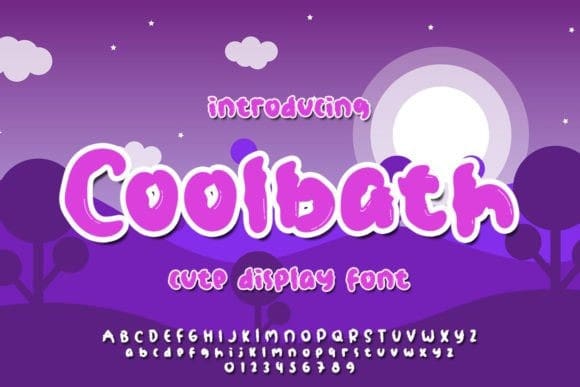
Coolbath Display Font
Coolbath Display Font is a beautiful and sweet display font. It is fresh, clean, and bold. This font will look amazing in a great number of projects, both formal and informal. It will add an incredibly joyful touch to your designs. Fonts are designed to simplify your design. By using this font, your business will look more beautiful.